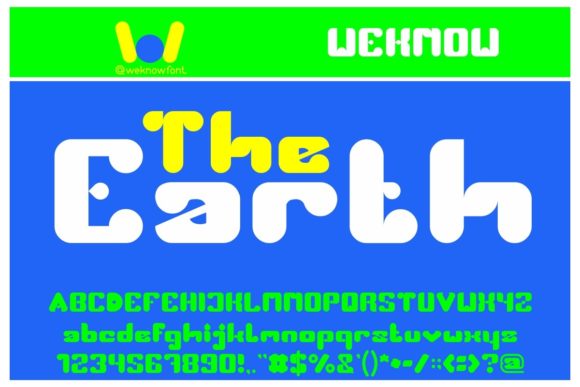
Prepare to be mesmerized by The Earth Font, a display font that will transport your designs to extraordinary heights. This remarkable creation by weknow is the epitome of cool and fancy, making it the perfect choice for captivating logos, headline fonts, and posters that demand attention.
Unleash your creativity and let The Earth Font transform your music, movie, and game designs into masterpieces. Its captivating curves and sharp angles will add a touch of intrigue to any magazine, book, or comic. Let your imagination soar with this font, and craft captivating YouTube videos, Instagram posts, and websites that leave a lasting impression.
The Earth Font is more than just a font; it's a gateway to a world of design possibilities. Its versatility knows no bounds, lending itself effortlessly to a myriad of creative projects. Whether you're a seasoned designer or just starting your artistic journey, The Earth Font will empower you to create designs that resonate with your audience and ignite their imaginations.
With The Earth Font at your disposal, you'll discover a newfound confidence in your design abilities. Its user-friendly nature makes it accessible to all, allowing you to explore your creativity without limitations. Let this extraordinary font be your guiding light, leading you to design triumphs that will leave an unforgettable mark on the world.